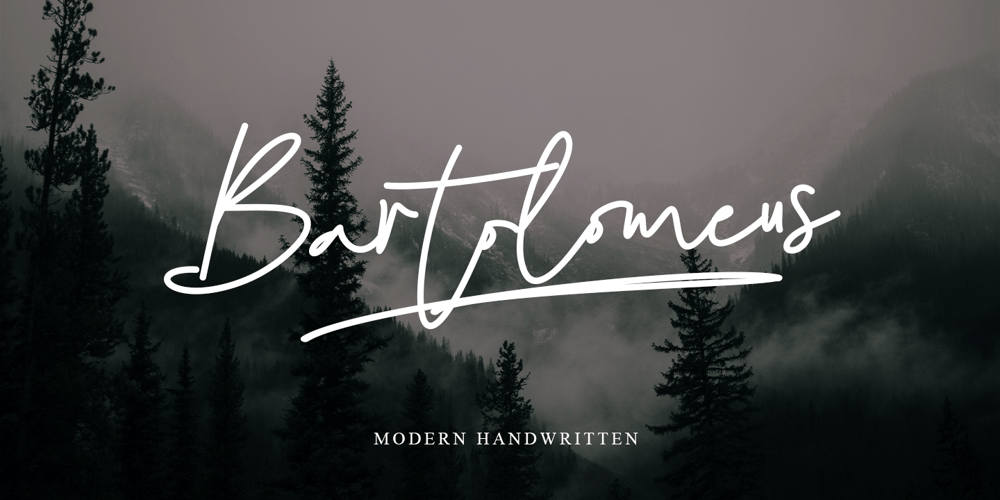
Bartolomeus Font Family was designed by Stefani Tri Rosa Setiati Christiana and published by Stefani Letter. Bartolomeus contains 2 styles and family package options. Bartolomeus is a stunning monoline-style script font with authentic and casual vibes. It looks beautiful on a variety of designs requiring a personalized style, such as wedding invitations, thank you cards, weddings, greeting cards, logos, and so on. Bartolomeus is PUA encoded which means you can access all of the glyphs with ease!